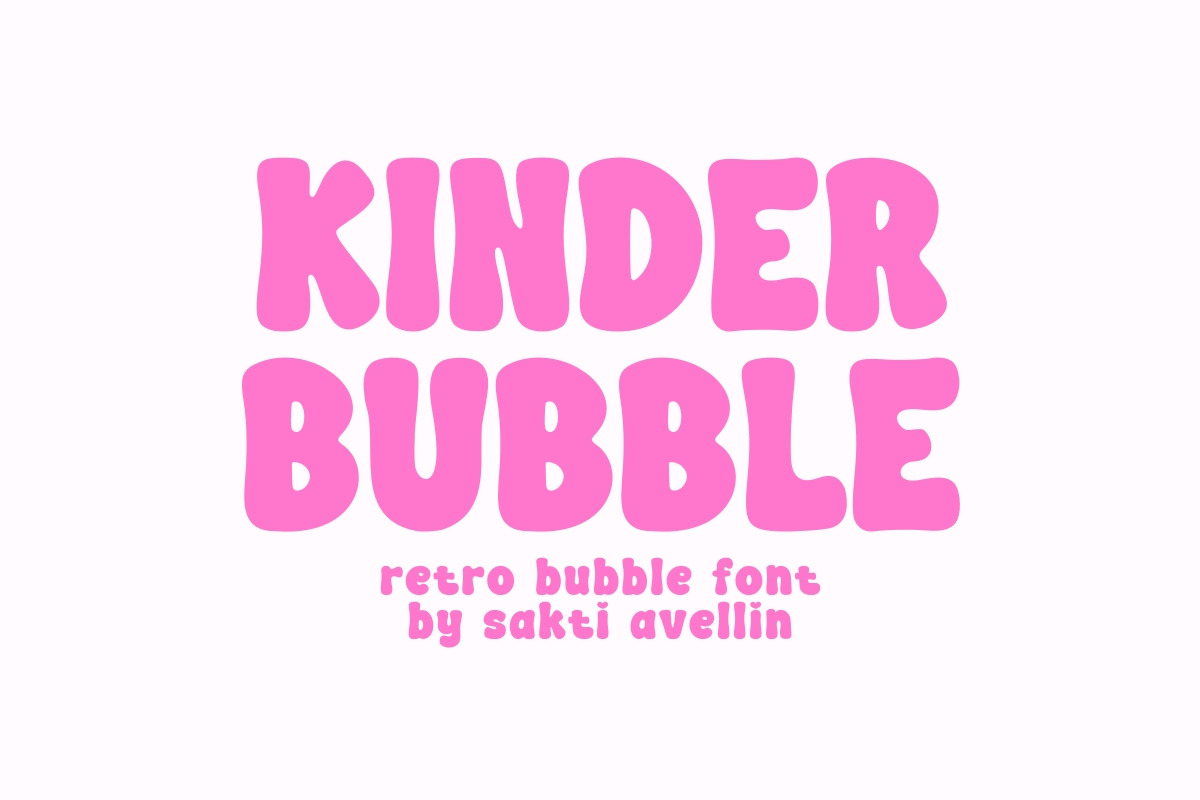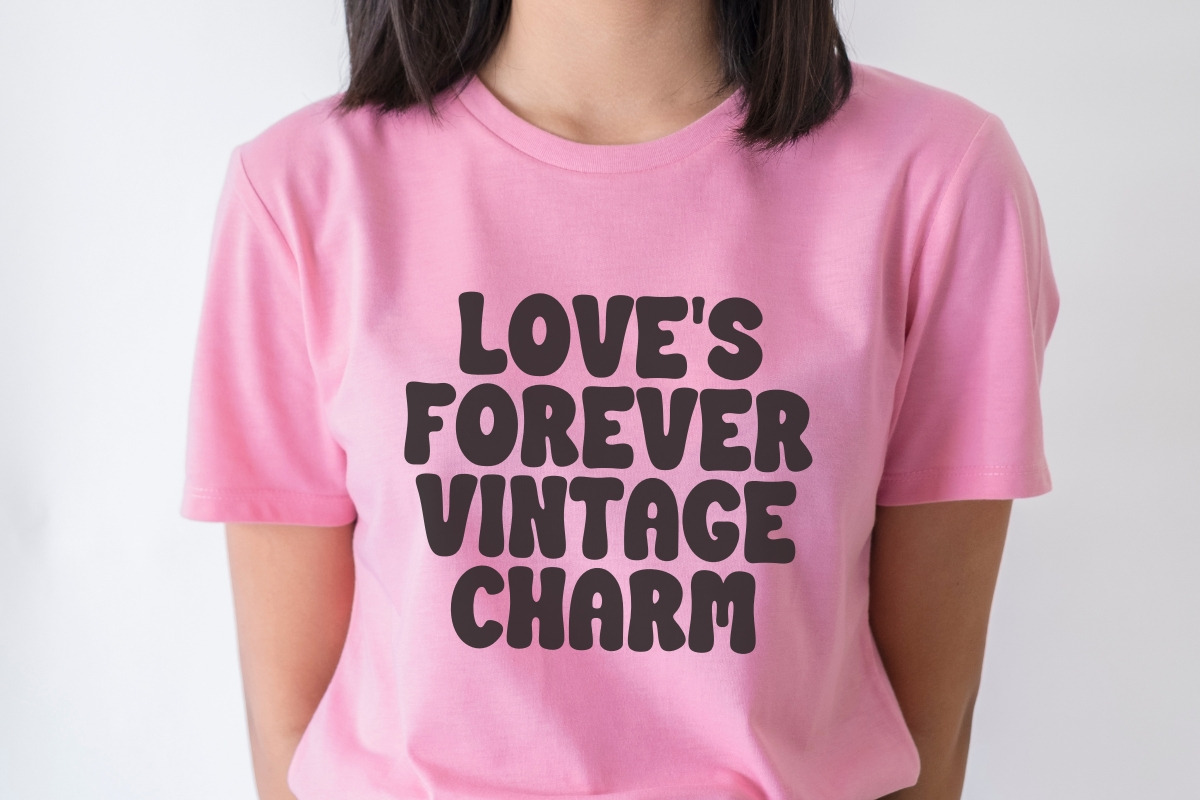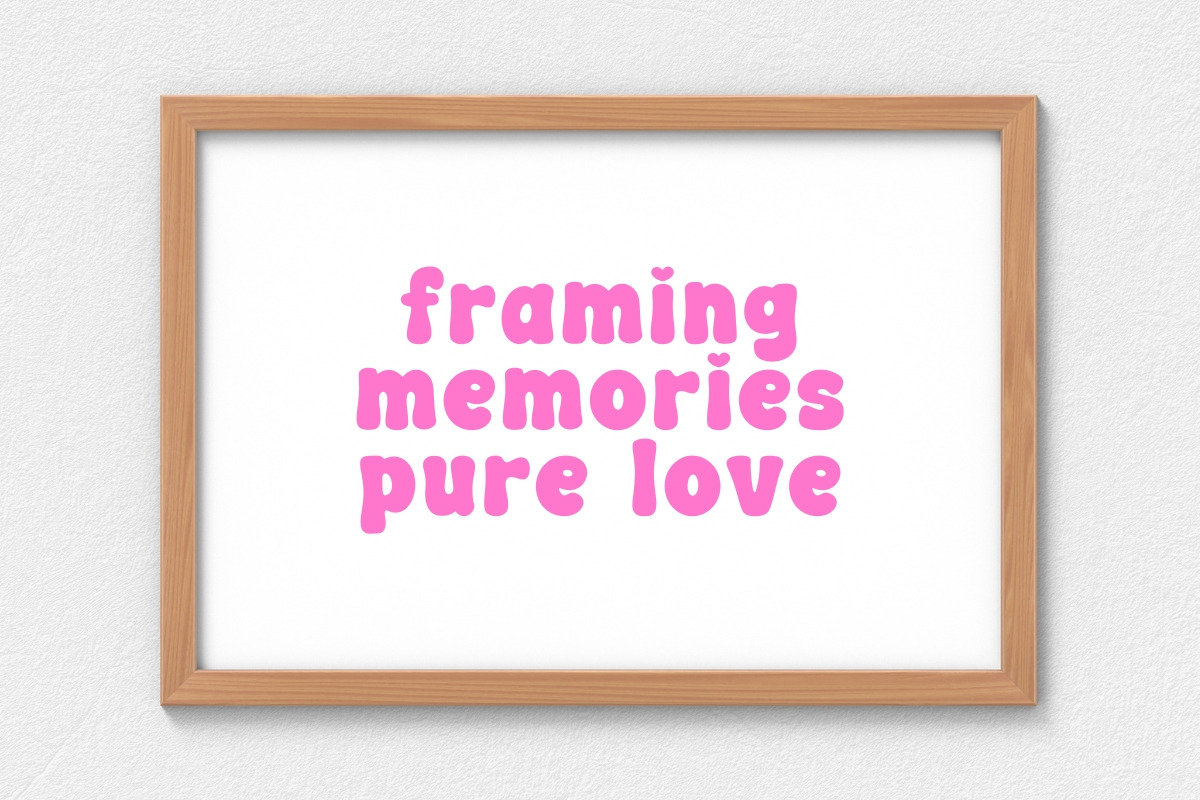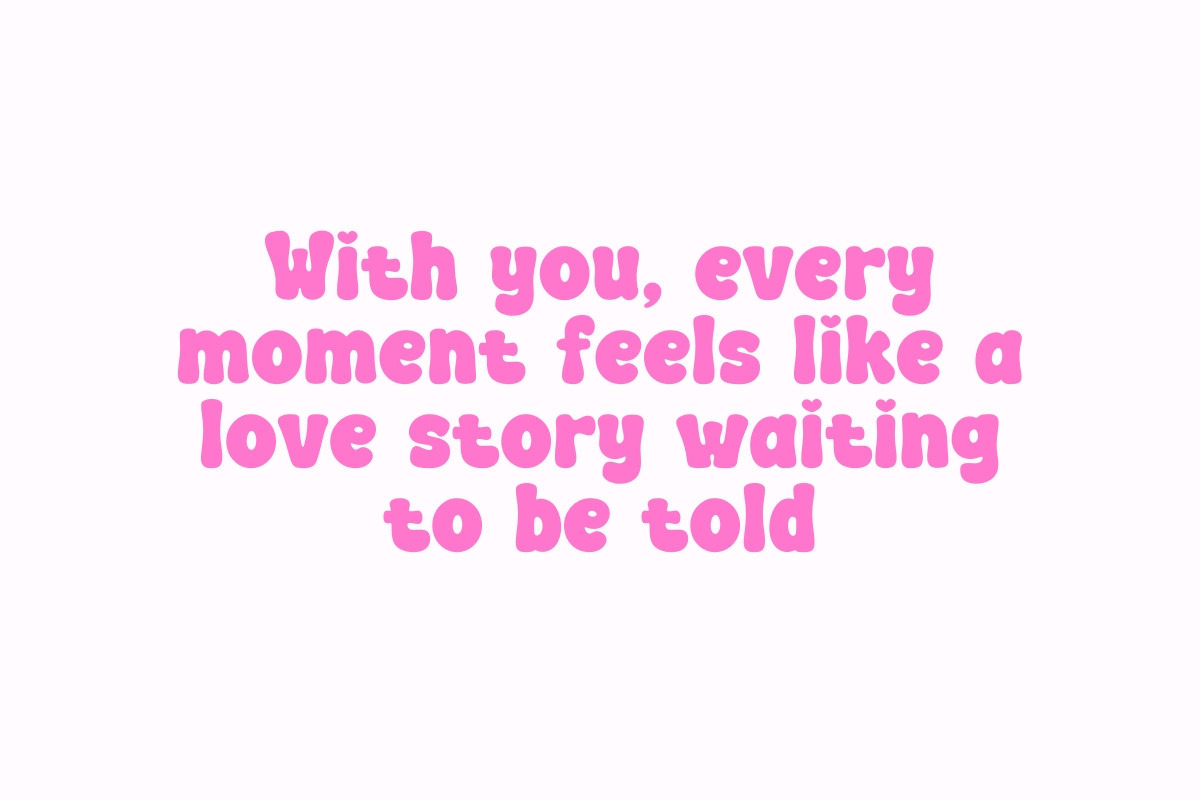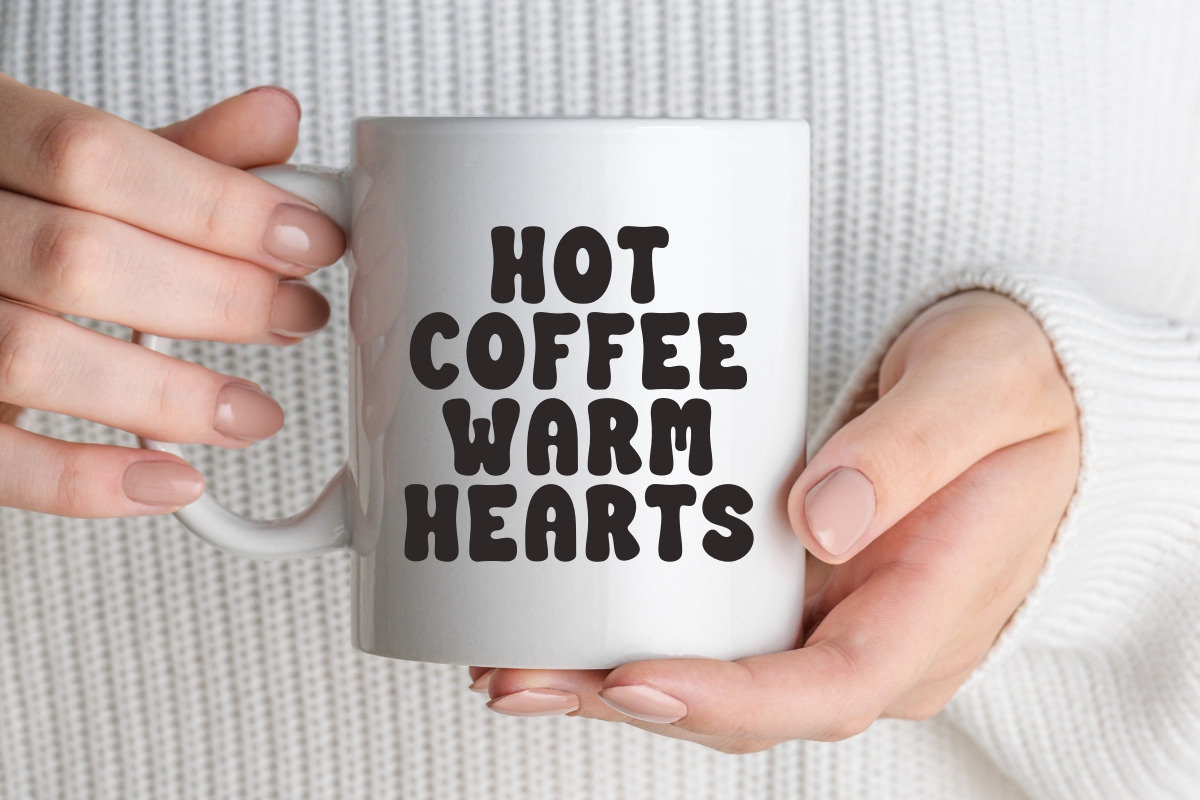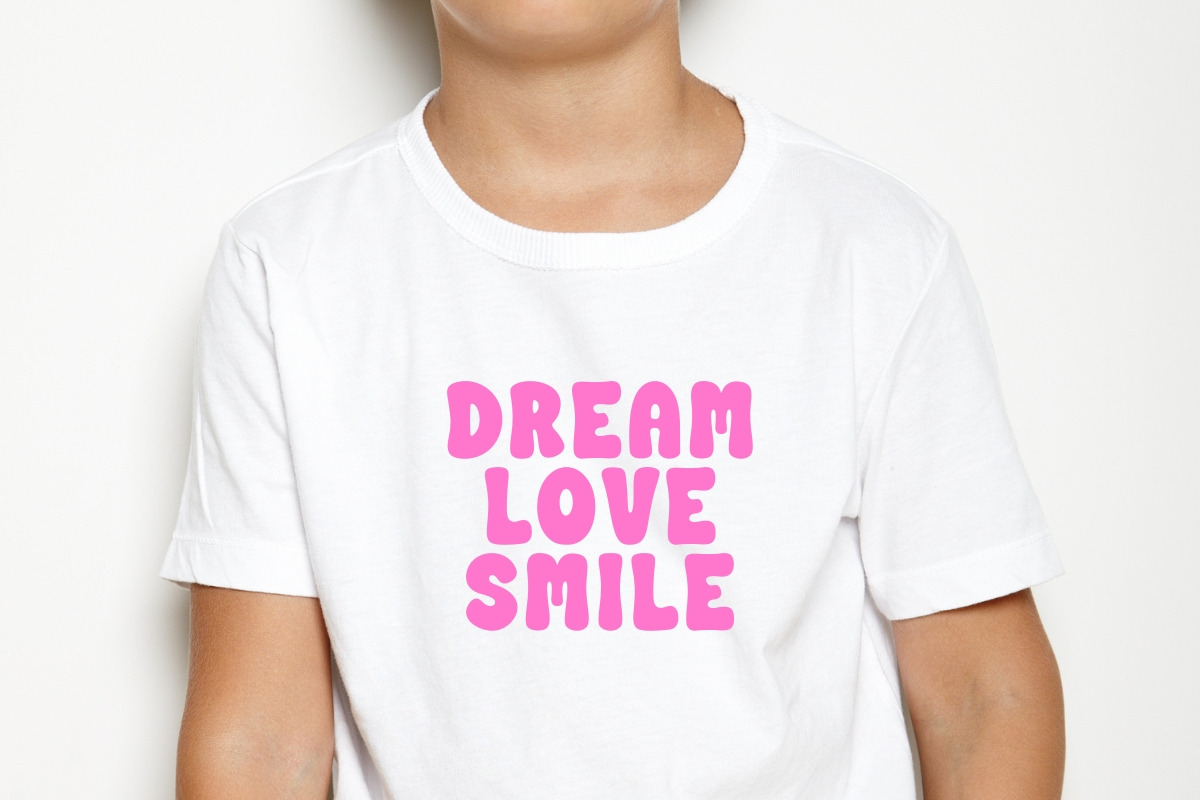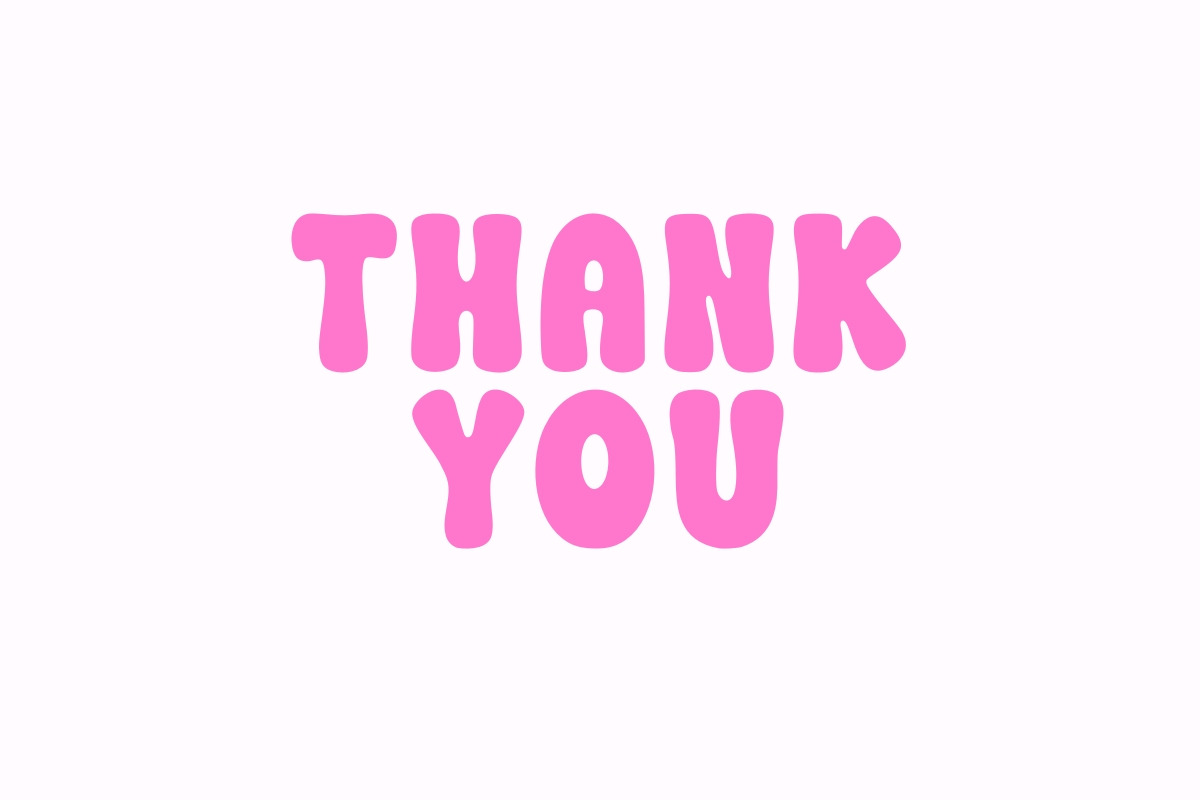
Kinder Bubble - Retro Display Font
Kinder Bubble is a wonderfully bold, incredibly fun, and cute retro bubble font that captures a joyful, nostalgic aesthetic. This chunky display font features exaggerated, rounded letterforms, creating a soft, happy, and whimsical look. It is essential for kids' branding, cheerful party invitations, fun feminine logos, vibrant t-shirt designs, and engaging social media graphics. Its distinctive, heavy style ensures it is a powerful display typeface for headlines and product packaging, appealing to a trendy audience that loves bold, 70s-inspired, and adorable design. Bring a dose of pure, bubbly fun to your creative projects with this delightful kindergarten font!